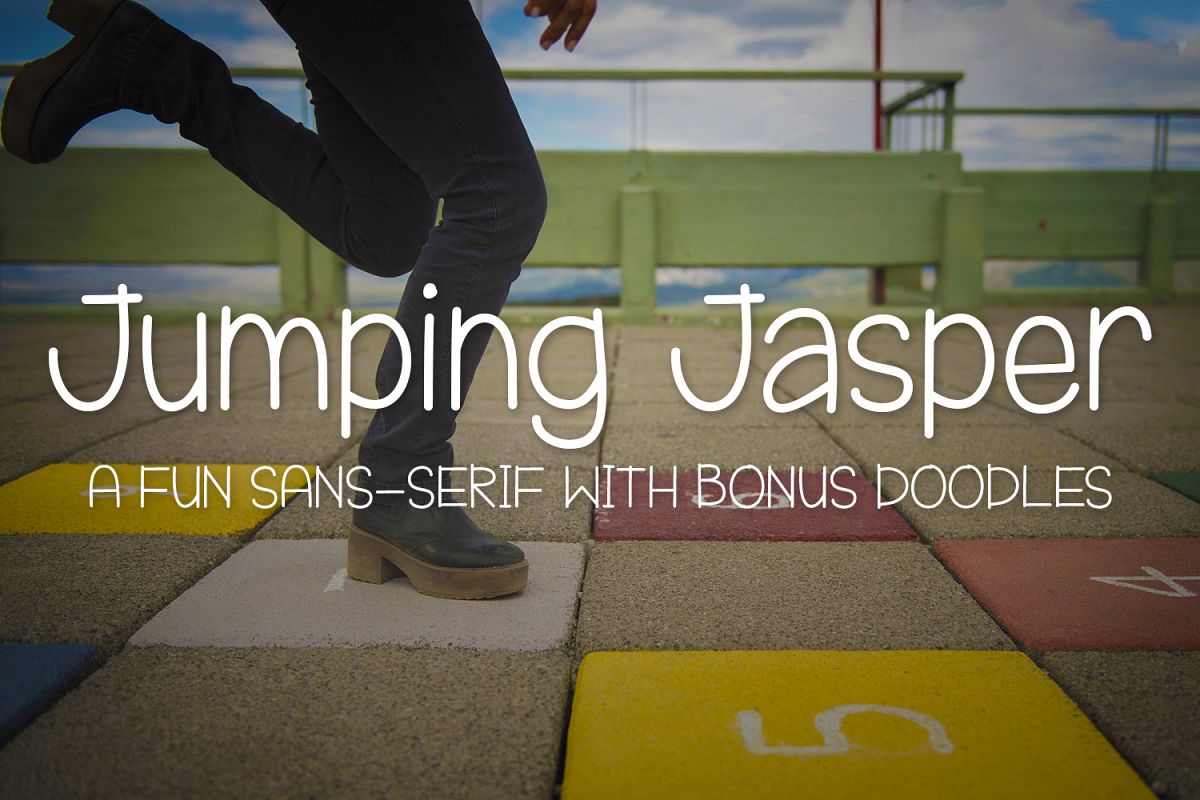
Jumping Jasper is a fun handwritten font perfect for quirky designs.
With a full set of uppercase and lowercase letters, multilingual and a bonus font file filled with doodles to help compliment your designs.